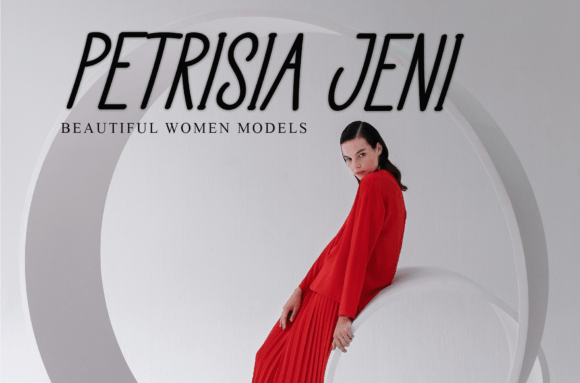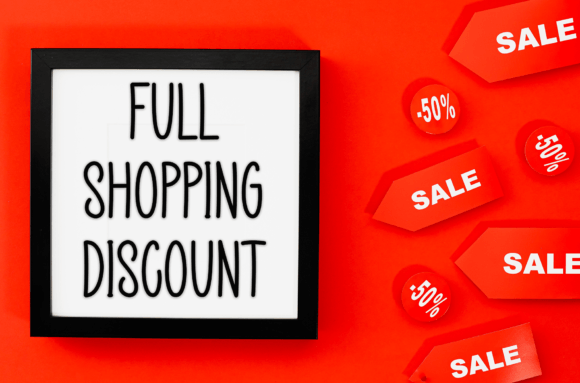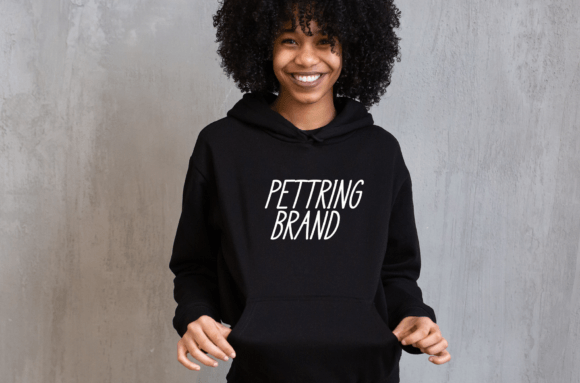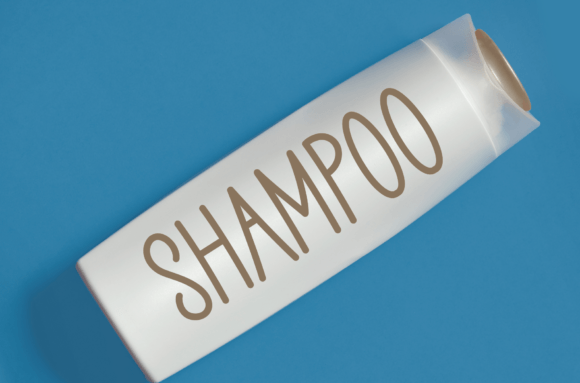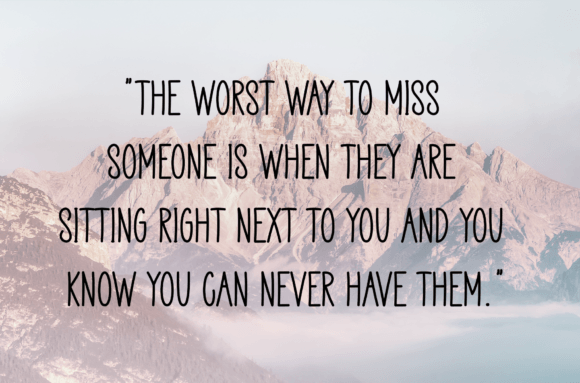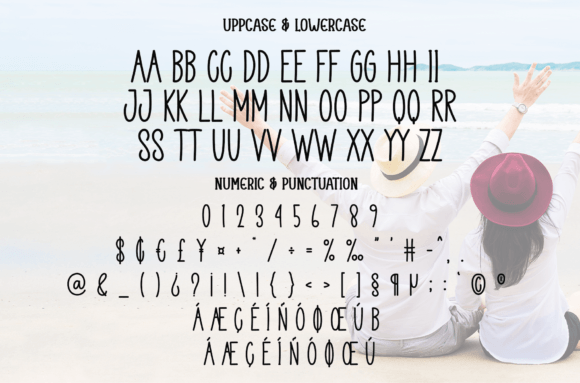
Introducing Happy Sunday: The Sweet and Friendly Handwritten Font
Are you tired of using the same old fonts for your designs? Do you want to add a touch of fun and personality to your wedding invitations, cards, and other creative projects? Look no further than Happy Sunday, a beautiful handwritten font that’s perfect for designers and crafters alike.
What is Happy Sunday?
Happy Sunday is a sweet and friendly handwritten font that’s designed to bring a smile to your face. With its fresh and neat style, this font is ideal for anyone looking to add a personal touch to their designs. Whether you’re creating wedding invitations, birthday cards, or social media graphics, Happy Sunday is the perfect choice.
Key Features of Happy Sunday
- Handwritten style: Happy Sunday has a beautiful, handwritten style that’s perfect for adding a personal touch to your designs.
- Fresh and neat: This font is clean and easy to read, making it perfect for use in a variety of designs.
- Fun and playful: Happy Sunday has a fun and playful vibe that’s perfect for designs that need a little extra personality.
- Versatile: This font can be used for a wide range of designs, from wedding invitations to social media graphics.
Happy Sunday is a great choice for designers and crafters who want to add a personal touch to their work. With this font, you can create beautiful and unique designs that will stand out from the crowd. Whether you’re creating digital designs or printing out physical copies, Happy Sunday is the perfect choice.
Use Happy Sunday for:
- Wedding invitations: Add a personal touch to your wedding invitations with Happy Sunday.
- Birthday cards: Create beautiful and unique birthday cards with this sweet and friendly font.
- Social media graphics: Use Happy Sunday to add a fun and playful touch to your social media graphics.
- Stationery: Create beautiful stationery with Happy Sunday, including letterheads, journals, and more.
Why Choose Happy Sunday?
There are many fonts to choose from, but Happy Sunday stands out from the rest. Here are just a few reasons why:
- Unique style: Happy Sunday has a unique and distinctive style that’s sure to turn heads.
- Easy to read: This font is clean and easy to read, making it perfect for use in a variety of designs.
- Versatile: Happy Sunday can be used for a wide range of designs, from digital designs to print materials.
If you’re looking for a sweet and friendly handwritten font that’s perfect for adding a personal touch to your designs, look no further than Happy Sunday. With its fresh and neat style, this font is ideal for designers and crafters alike. So why wait? Download Happy Sunday today and start creating beautiful and unique designs that will stand out from the crowd!